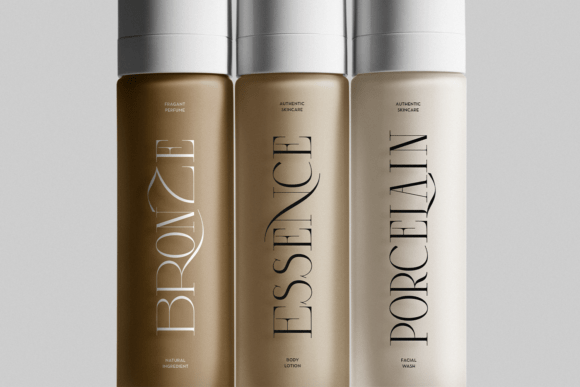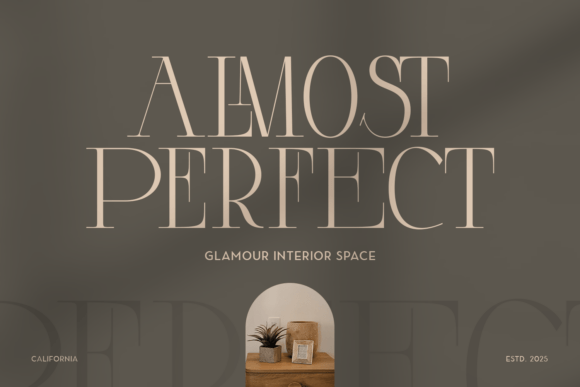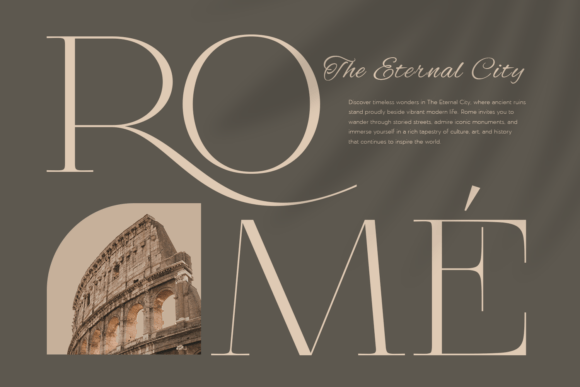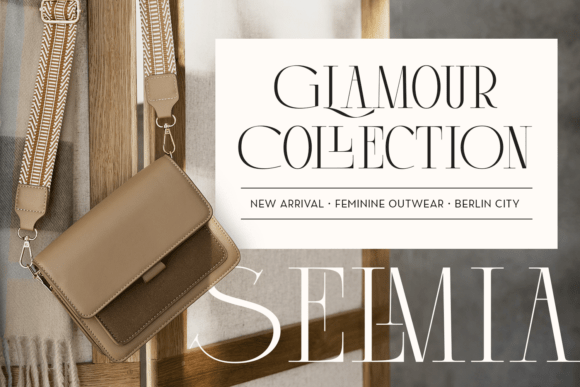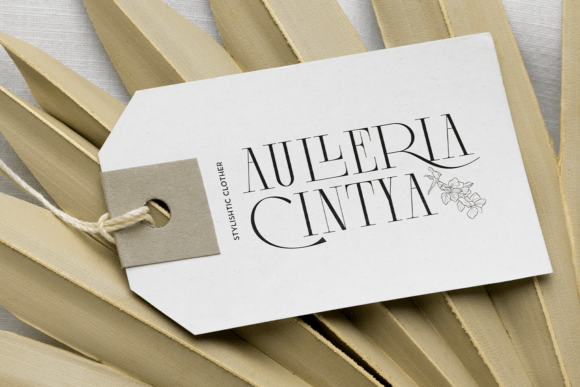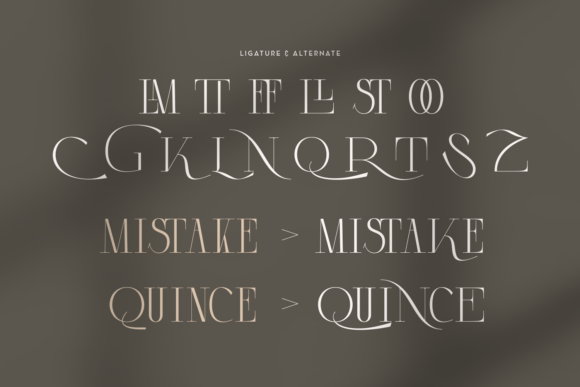
Introduction to Moonrise Font Font
Fonts play a crucial role in design, and the Moonrise Font font is a typeface that brings both character and versatility to any project. Whether you’re working on a branding project, a website, or a print design, the Moonrise Font font offers a unique style that can elevate your work.
Moonrise introduces a refined blend of script calligraphy and elegant serif detailing, creating a luxurious typographic expression suitable for high-end visual identities.
Its graceful strokes and sculpted structure deliver a sophisticated balance between artistry and modernity Featuring a wide selection of alternates and meticulously crafted ligatures, Moonrise offers extensive creative flexibility.
Key Features of Moonrise Font Font
Why Choose Moonrise Font Font?
The Moonrise Font font is more than just a typeface – it’s a design tool that helps you communicate your message with style and clarity. Its unique character set and versatile design make it suitable for a wide range of applications, from elegant invitations to bold headlines.
With its carefully crafted letterforms and balanced proportions, the Moonrise Font font ensures readability and visual appeal across all mediums.
What makes Moonrise Font font special?
The Moonrise Font font stands out with its unique design, exceptional readability, and versatility across various design applications.